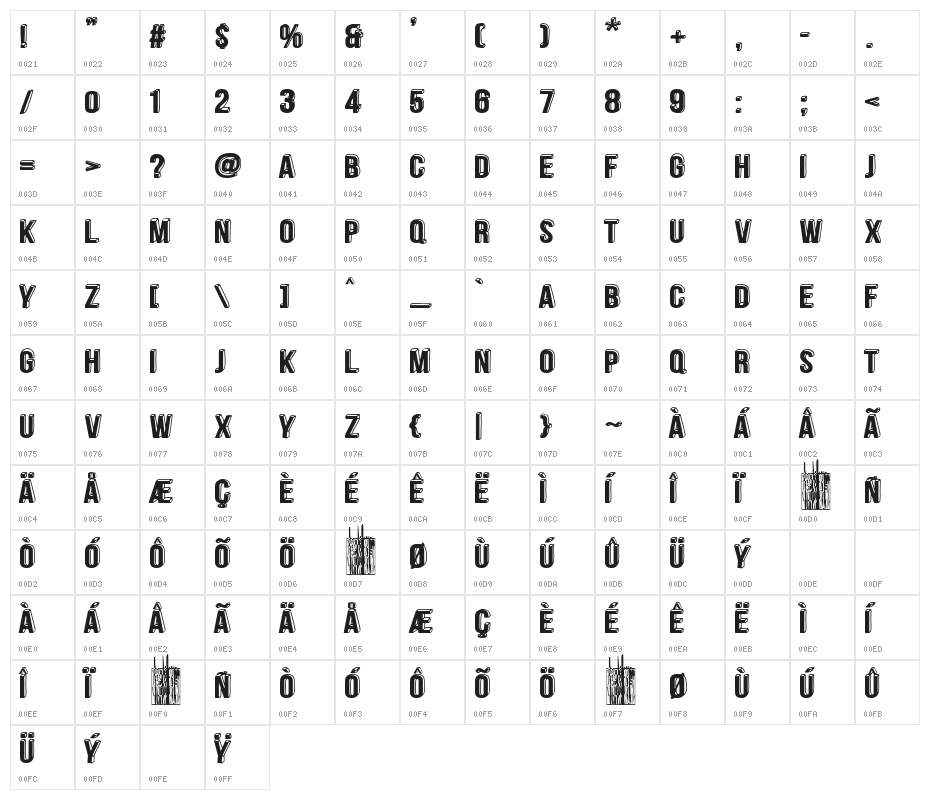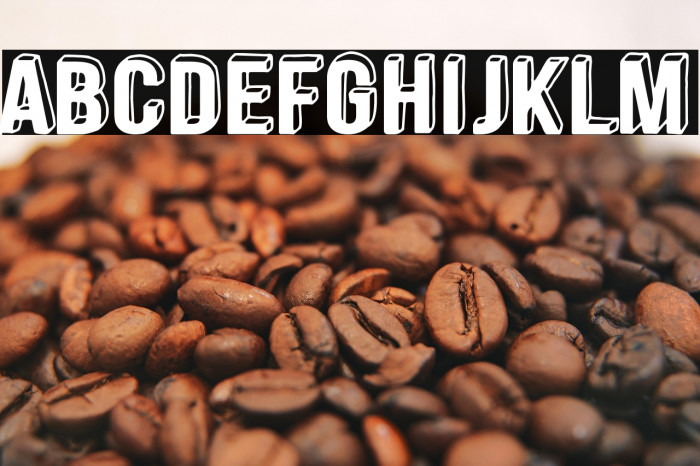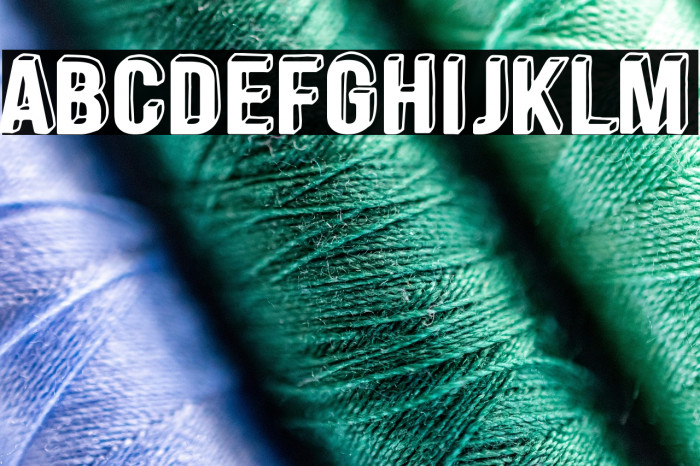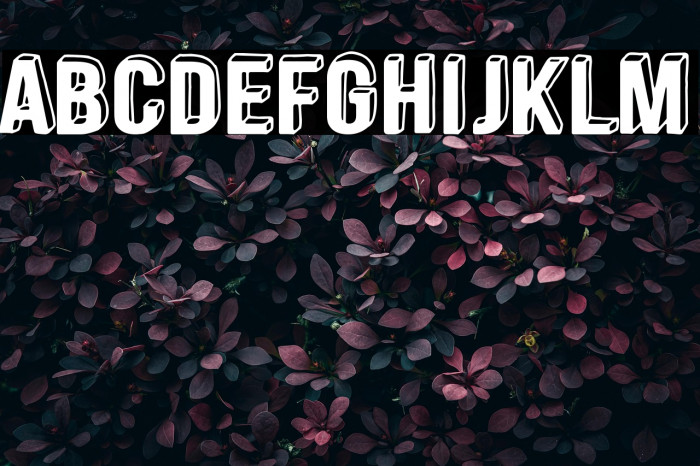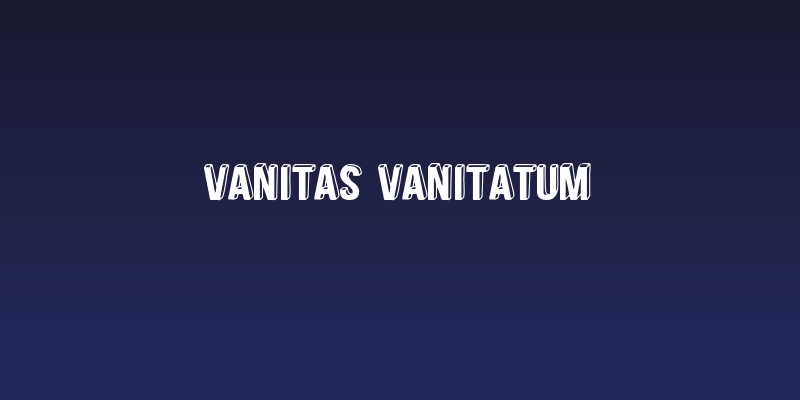
Vanitas Vanitatum Font
Vanitas Vanitatum Description
A bold, decorative display typeface with a three-dimensional, outlined shadow effect. The characters are uppercase, geometric, and have a playful, retro vibe. The font features thick strokes with a consistent shadow offset, giving a sense of depth and dimensionality.
| Overall Style | Decorative, Retro, Playful |
| Use Case | Headlines, Posters, Logos, Event Promotions |
| Proposed Projects | Posters, event flyers, branding for entertainment or nightlife, retro-themed designs, headlines. |